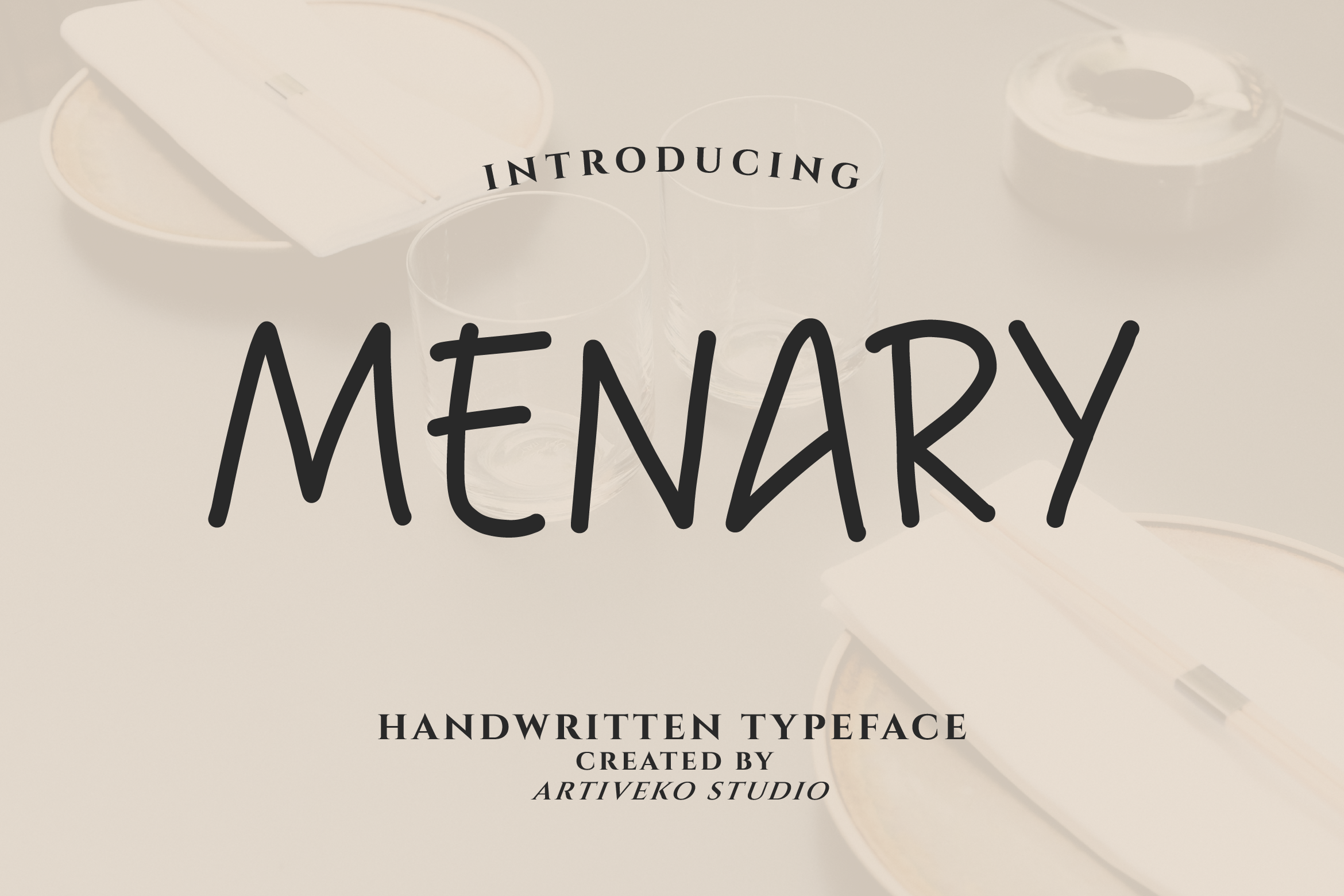
- Menary Handwritten Font
Menary is a stylish handwritten font that brings a personal and sophisticated touch to your designs. With smooth curves, natural strokes, and an effortless flow, Menary is perfect for branding, wedding invitations, product packaging, greeting cards, and social media graphics that need a warm, human feel.
Its handcrafted aesthetic combines authenticity with modern elegance, making it versatile for both casual and upscale projects. Menary includes uppercase and lowercase letters, numerals, punctuation, multilingual support, and a range of ligatures and stylistic alternates for creative flexibility.
Whether you’re creating a romantic logo or trendy marketing visuals, Menary adds charm and personality to every word.
Bring a handwritten touch of class to your designs with Menary — the font that feels modern, natural, and effortlessly elegant.